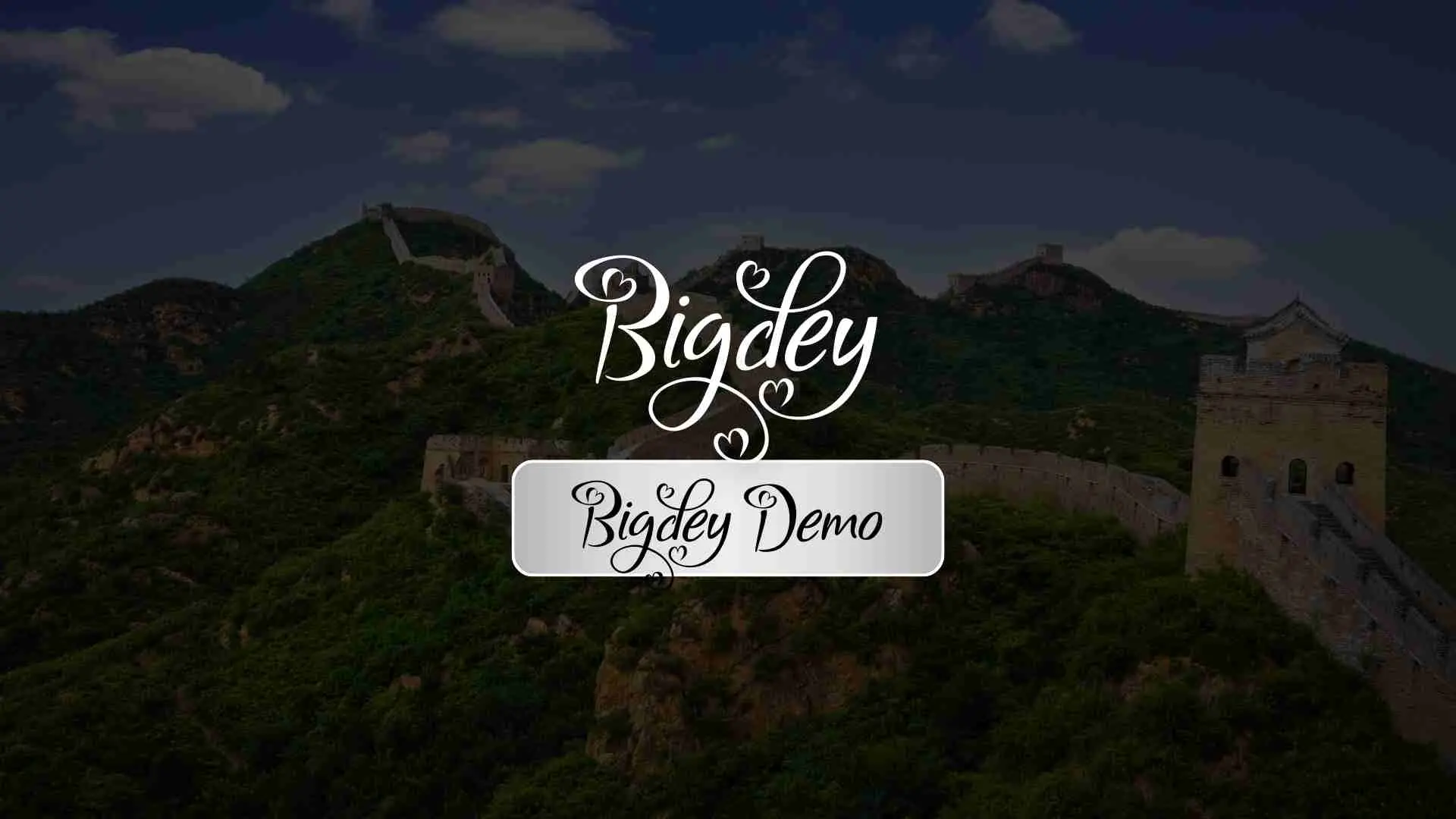
The font Bigdey Demo, designed by Evas Unique Fonts, falls under the Script category & Bigdey font family. Its smooth, flowing letterforms make it a versatile choice for projects that require both elegance and readability. Bigdey is particularly well-suited for Branding, Wedding Invitations, Crafting, Logos, Greeting Cards and Event Stationery. With its balance of simplicity and decorative appeal, this font brings a polished touch to both personal and professional designs.